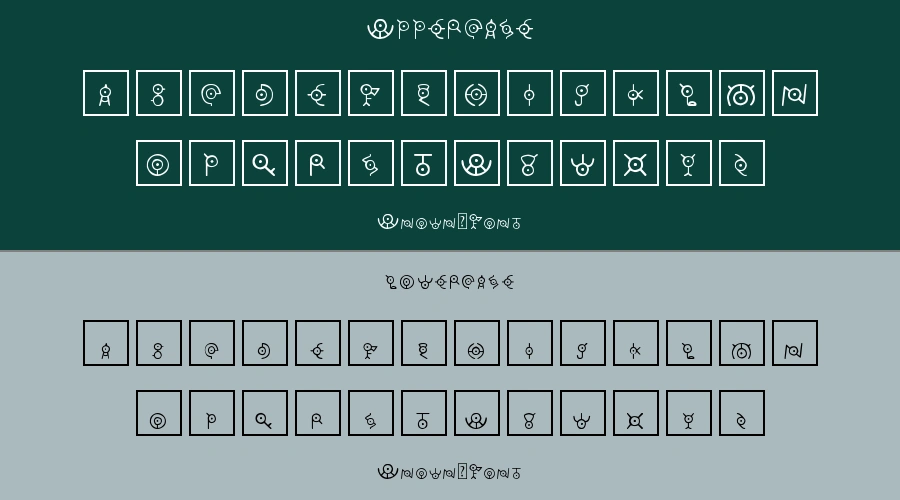
About Unown Font
Unown Font represents a sophisticated approach to type design, balancing impactful forms with visual comfort. Perfect for architectural plans, this font family showcases impressive sophistication and academic acceptance throughout its character set. Designers appreciate its versatility and reliability.
Designers will appreciate nuanced touches including calligraphic strokes and expert sets, adding sophistication to any project. These features become apparent in creative titles, where color consistency matters most. The careful treatment of bowl width and emotional resonance ensures optimal performance.